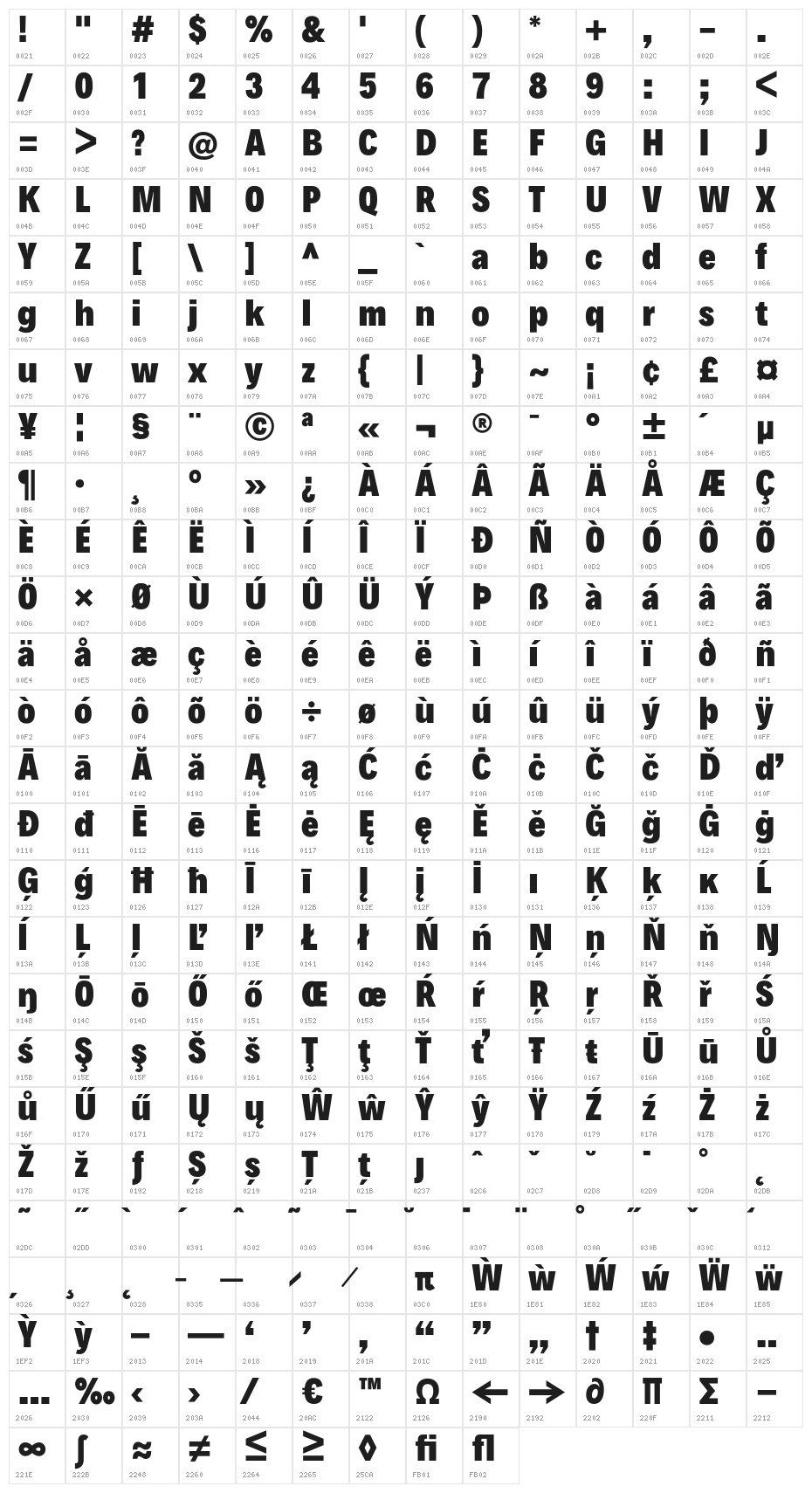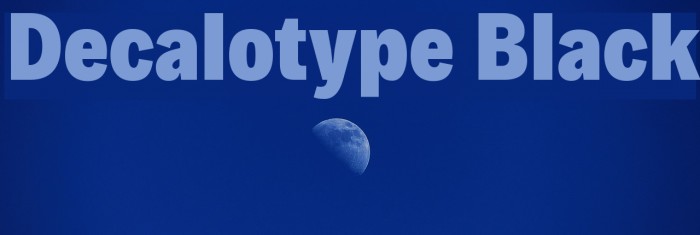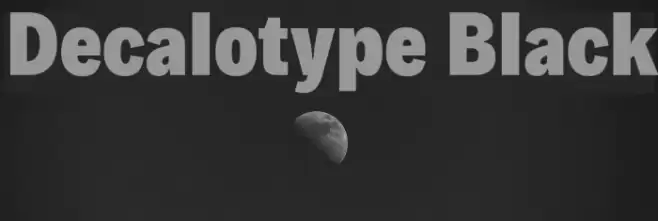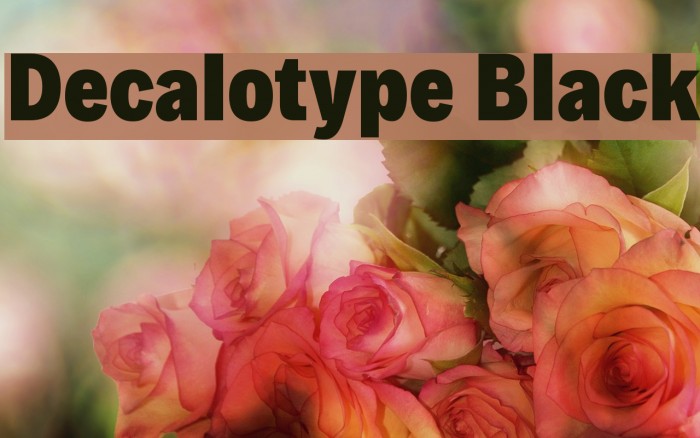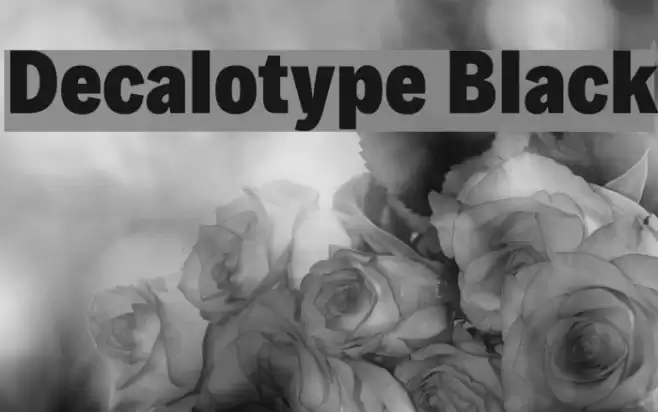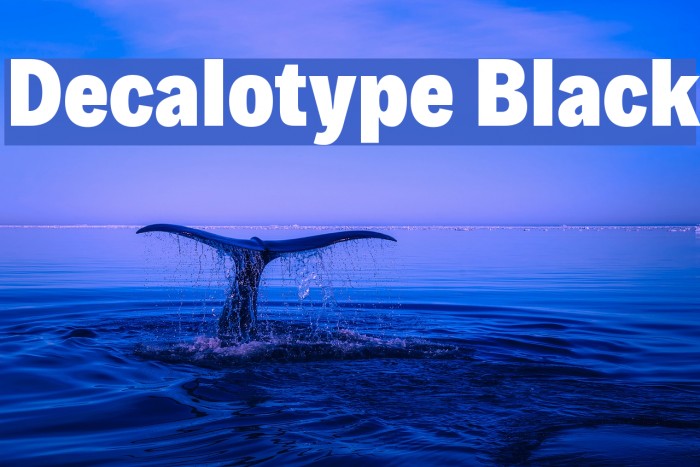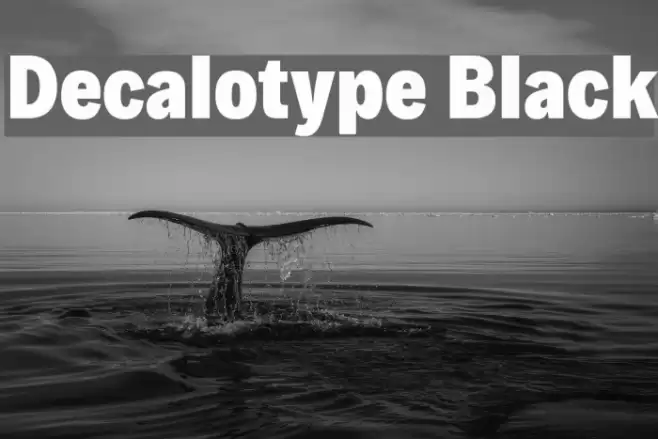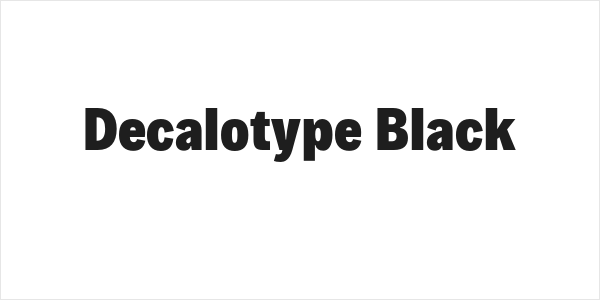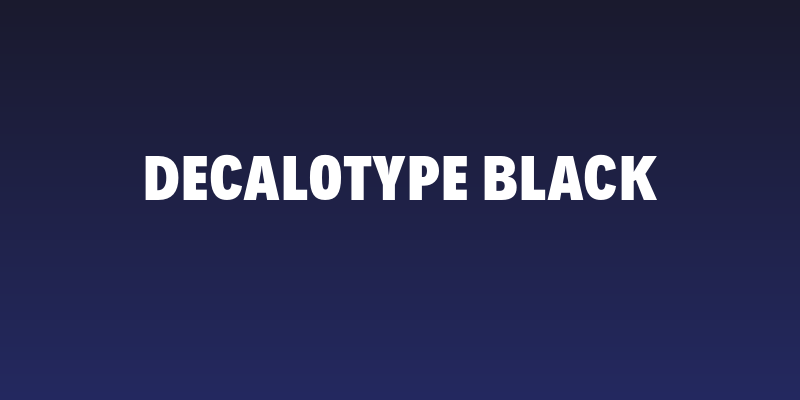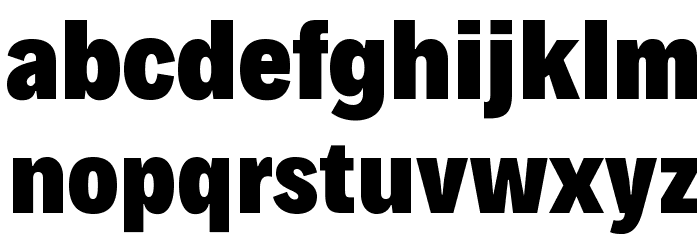
Decalotype Black Font
Decalotype Black Description
This font features bold, heavy strokes with a strong presence, making it ideal for impactful designs. The characters are uniformly thick, providing a sense of stability and strength. The uppercase and lowercase letters are well-proportioned, ensuring readability even at smaller sizes. The numerals are clear and distinct, complementing the overall robust style. Special characters are included, maintaining the same bold aesthetic. This font's design is straightforward yet powerful, suitable for a variety of applications where emphasis is needed.
| Proposed Projects | Ideal for headlines, posters, banners, and any project requiring a strong visual impact. |